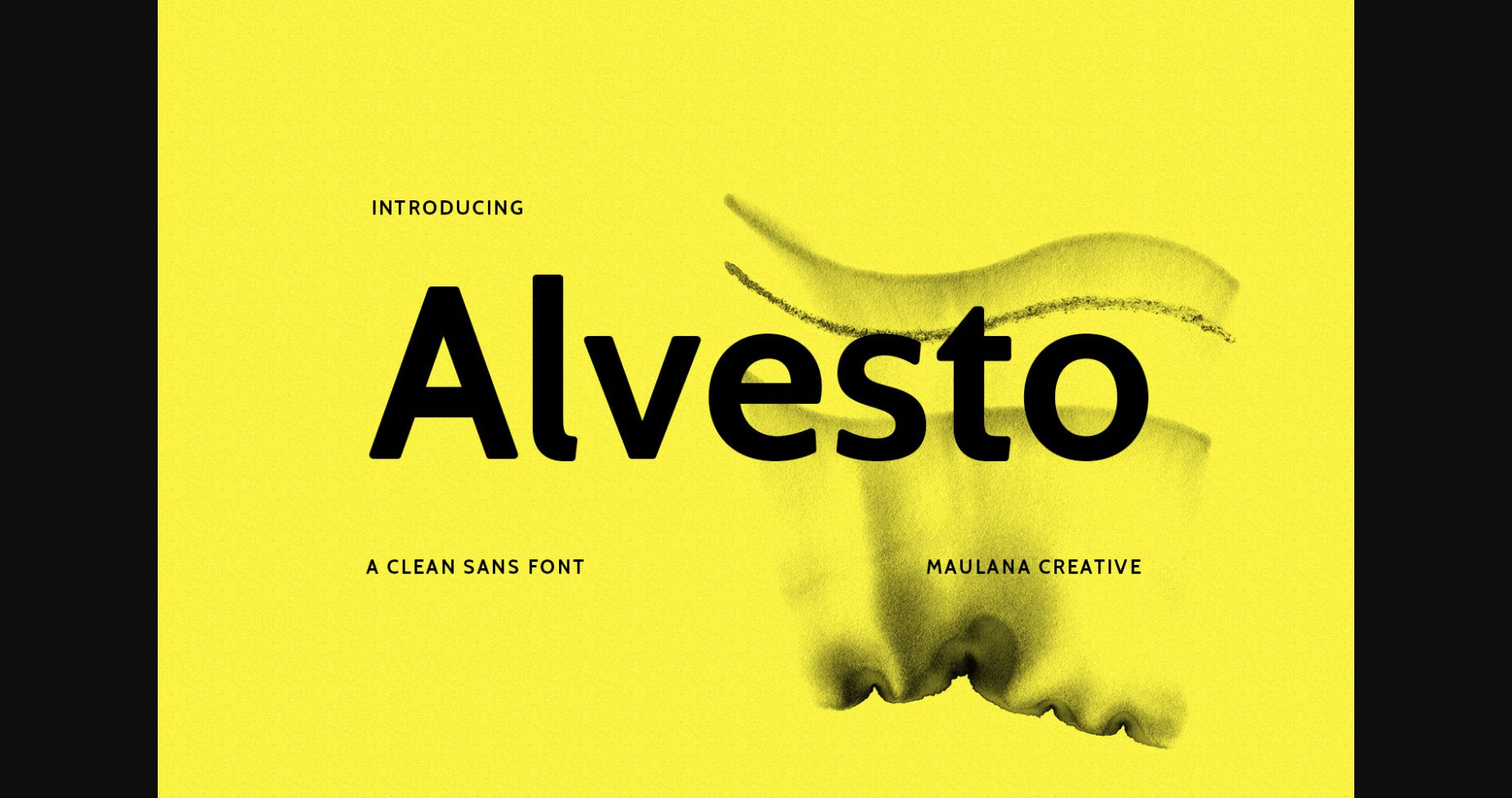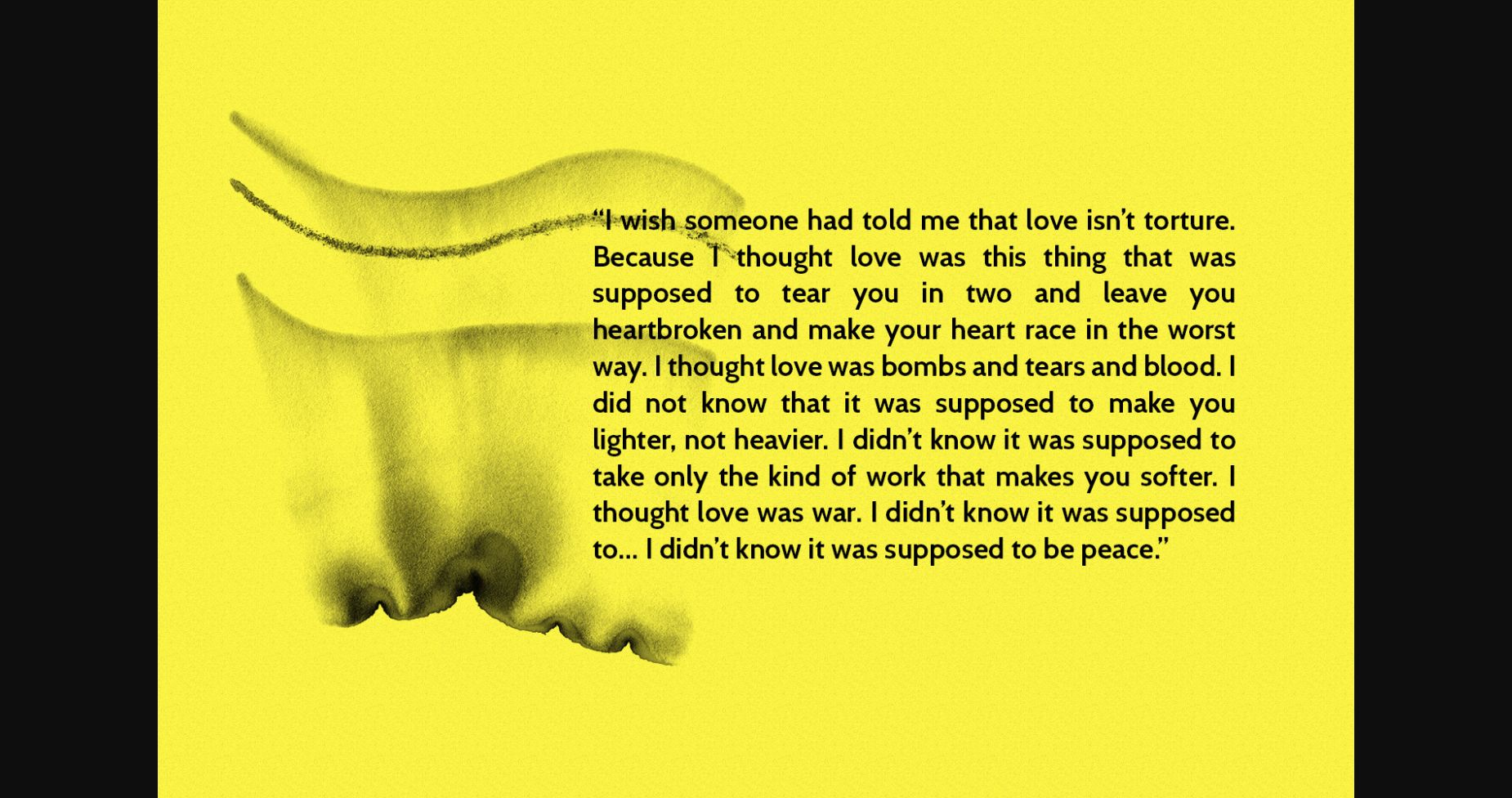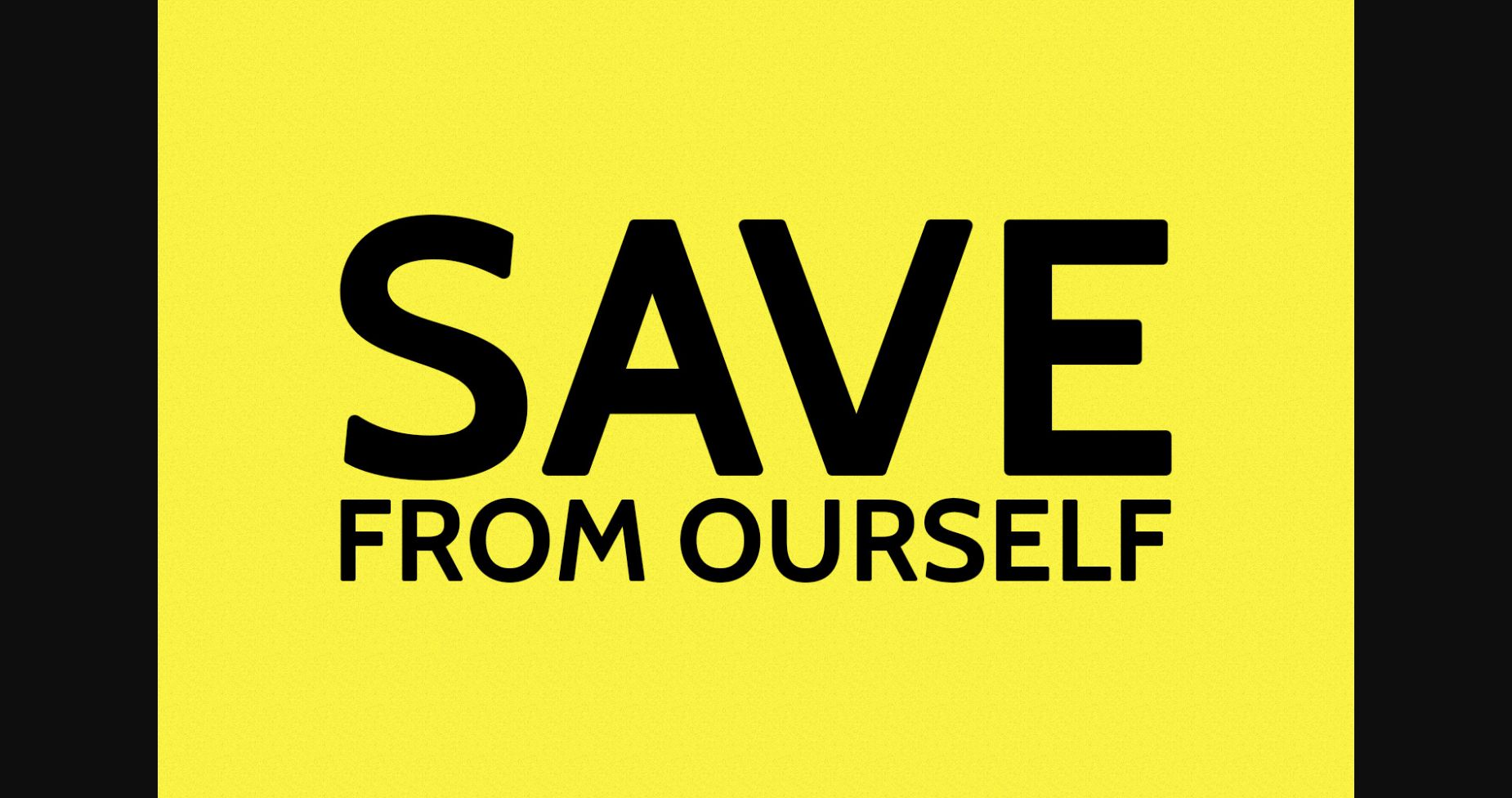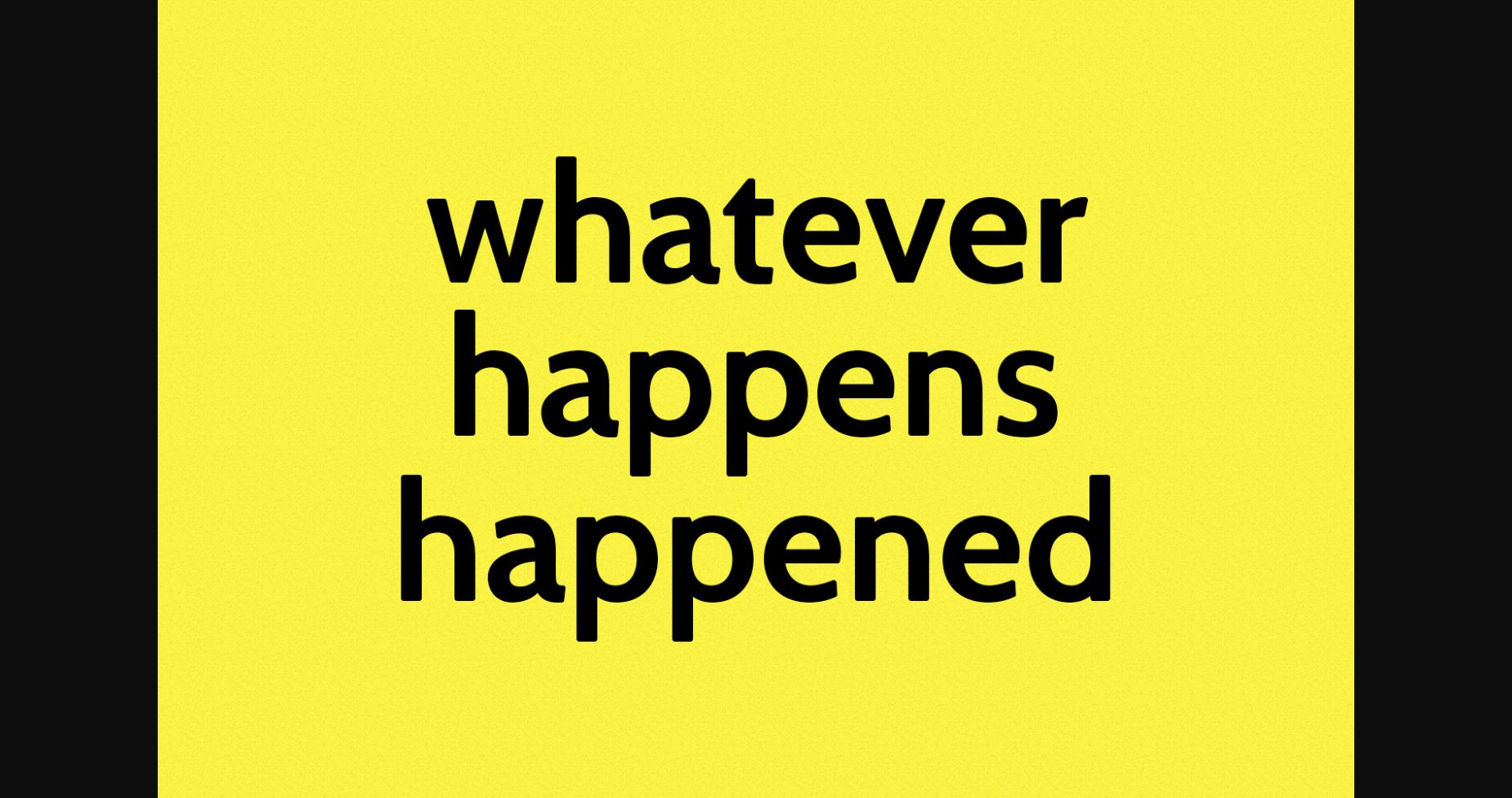
About Alvesto Font
Alvesto is a sleek and modern sans serif font that is perfect for a minimalist design. With its clean lines and balanced proportions, it exudes simplicity and elegance. Alvesto is versatile and works well for both headings and body text. Its clarity and readability make it an ideal choice for any design project that requires a no-nonsense approach.